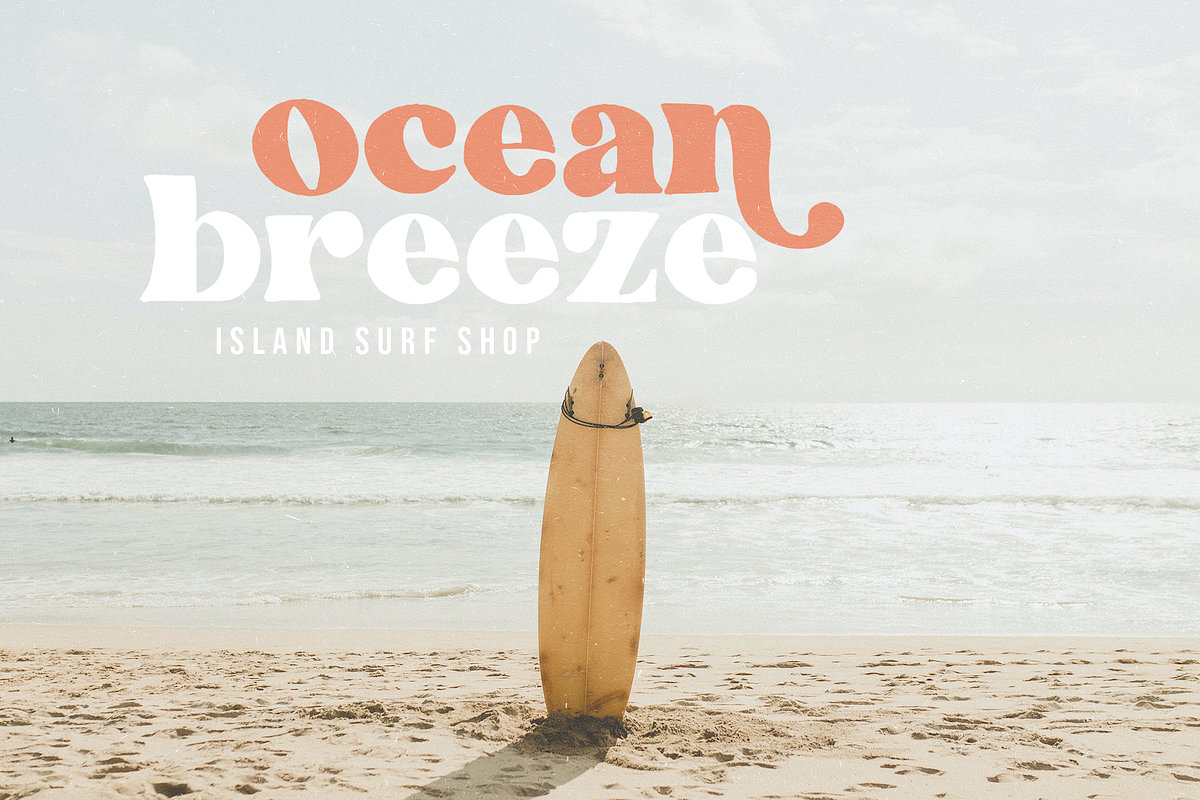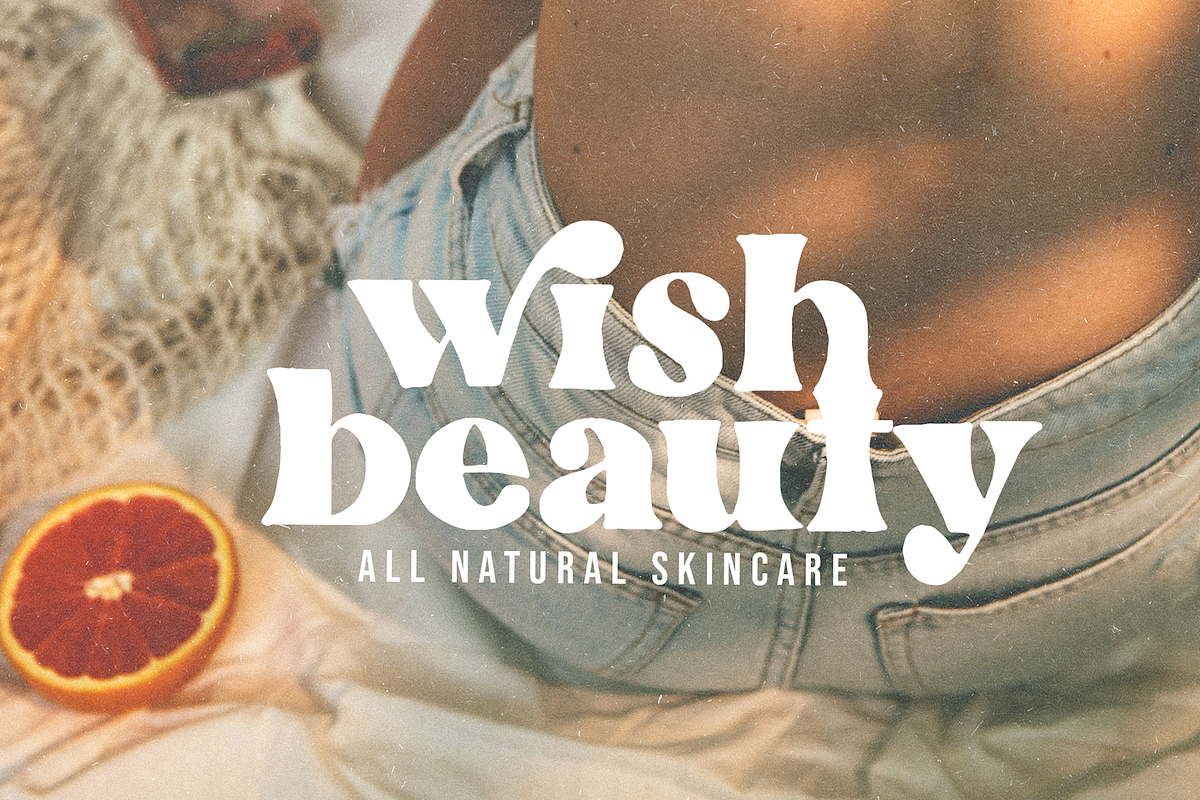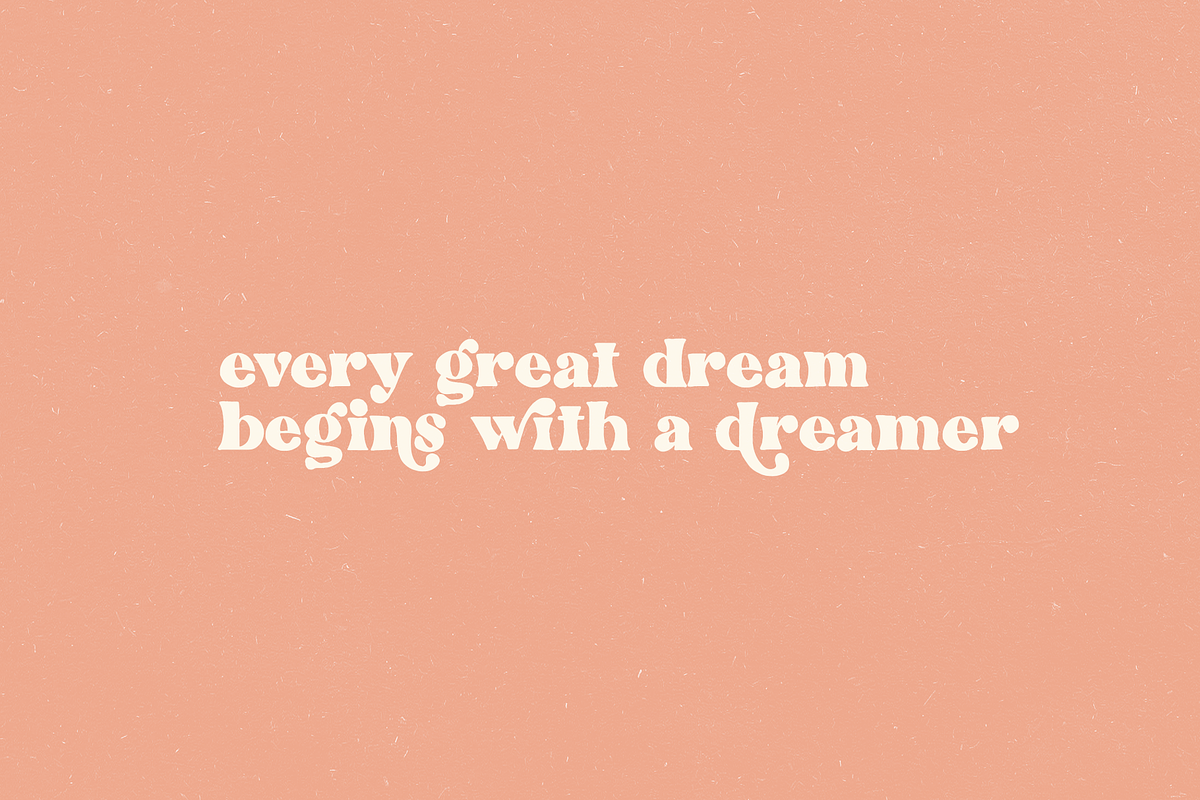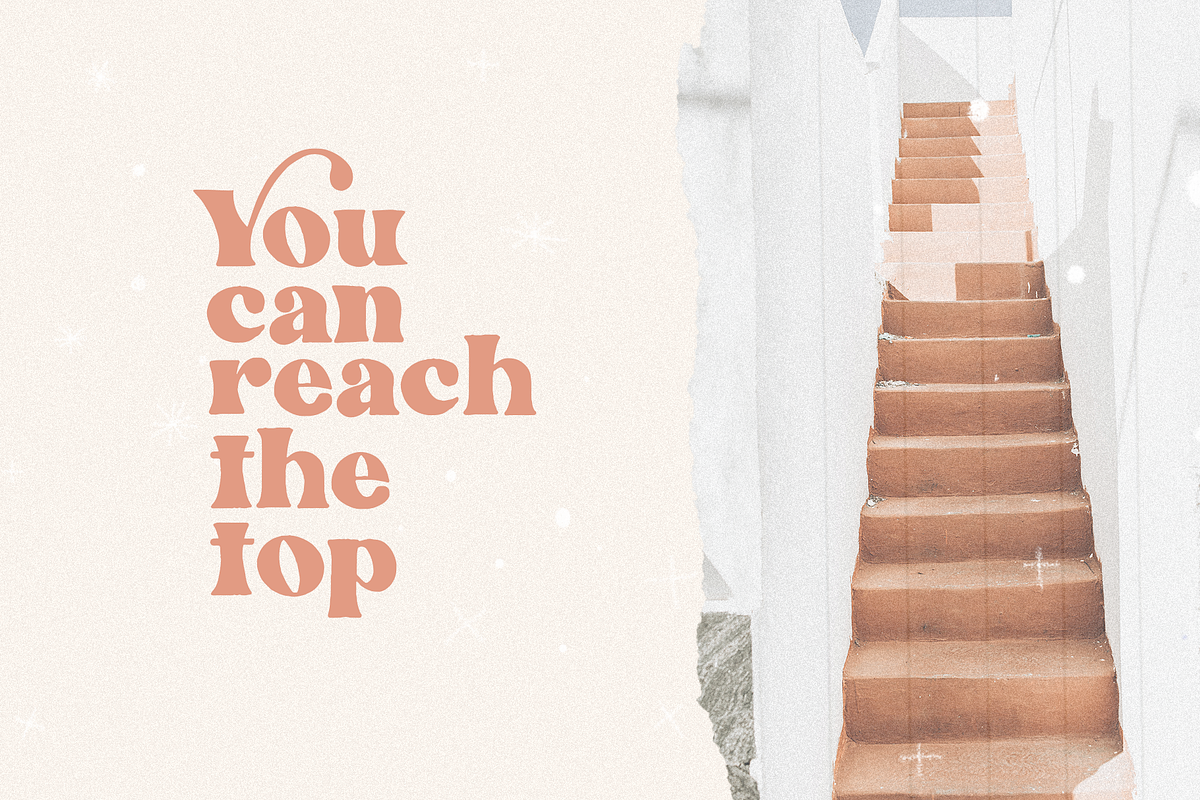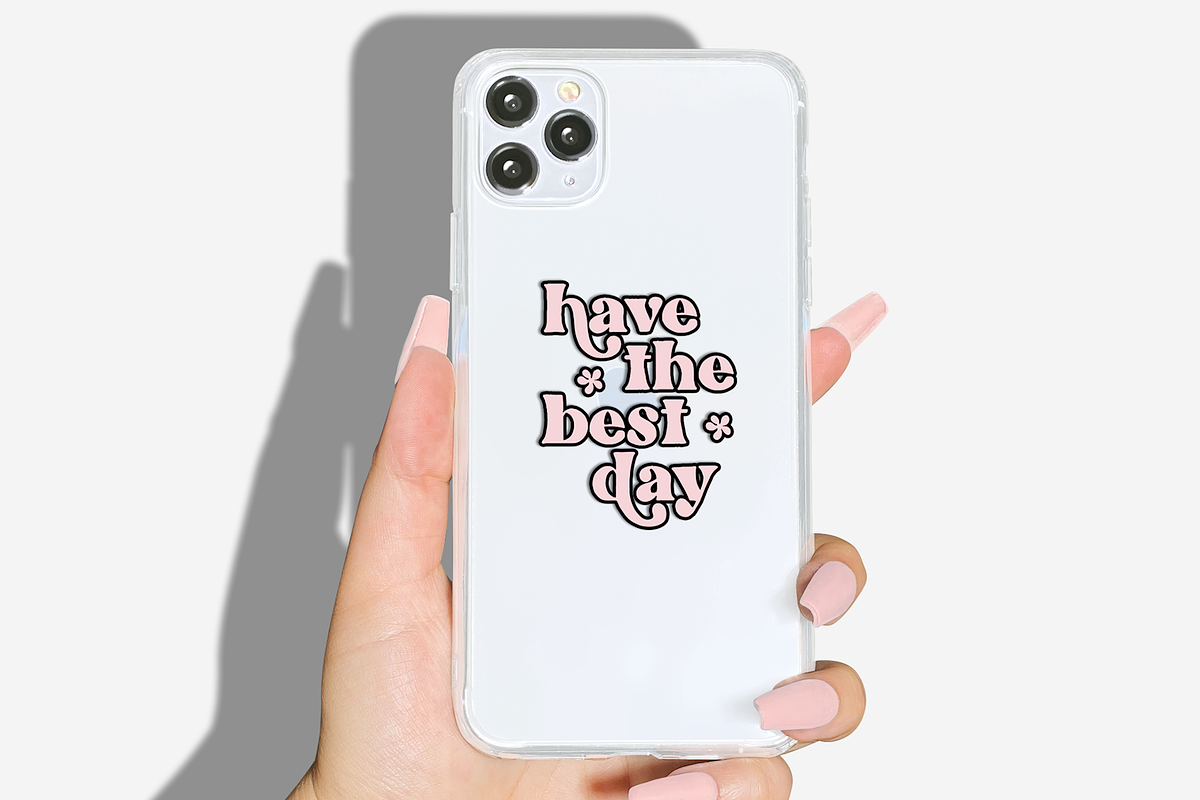
Wished | Hand-drawn Serif Font
Wished is an imperfect, hand-drawn serif font. It has a modern look with a free-spirit touch! There are a fun set of alternative letters to play with as well!
Wished is perfect for branding, logos, initials, invitations, blogs, social media and more!